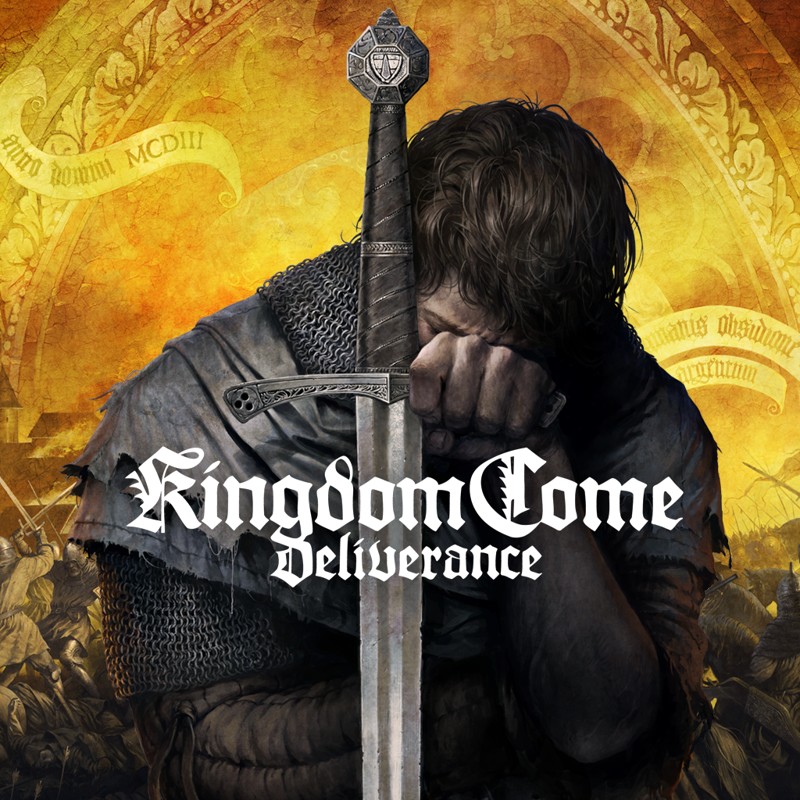
Kingdom Come Deliverance Font
Fonts in UseKingdom Come: Deliverance is an action role-playing game developed by Warhorse Studios and published by Deep Silver. It was released in 2018 for Microsoft Windows, PlayStation 4, and Xbox One. The game is set in medieval Bohemia and follows the story of a young blacksmith named Henry as he gets caught up in a civil war and seeks to avenge his parents' death.
The title of the game featured on the box art appears to have been altered from Maximilian, a blackletter font created by Dieter Steffmann that is freely available in both Regular and Decorative (Zier) styles. You can download these styles for free from the Fonts Used Section.